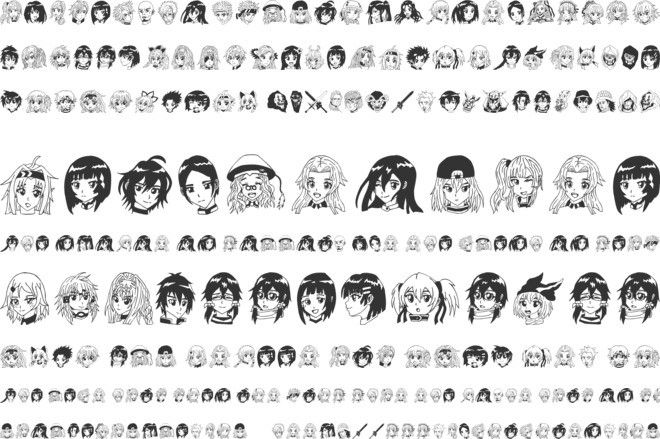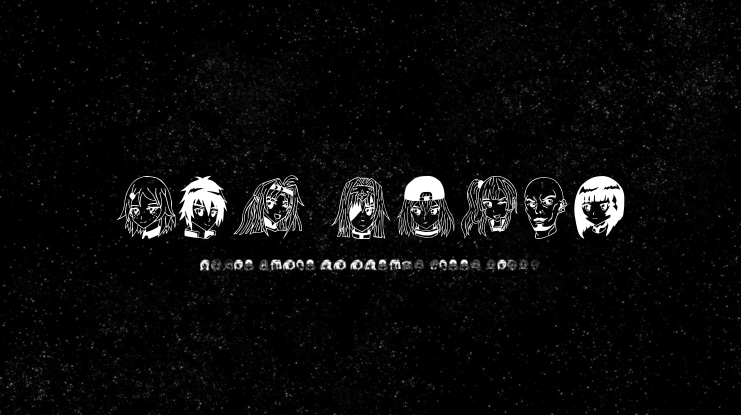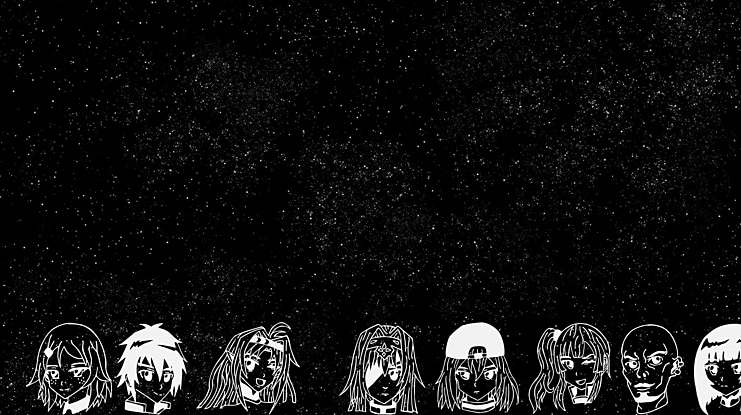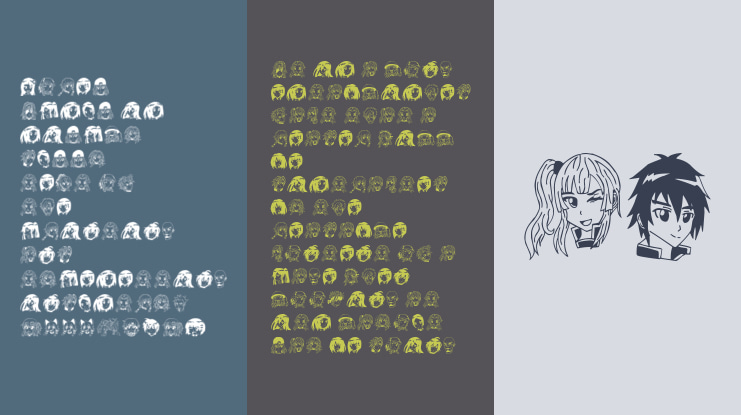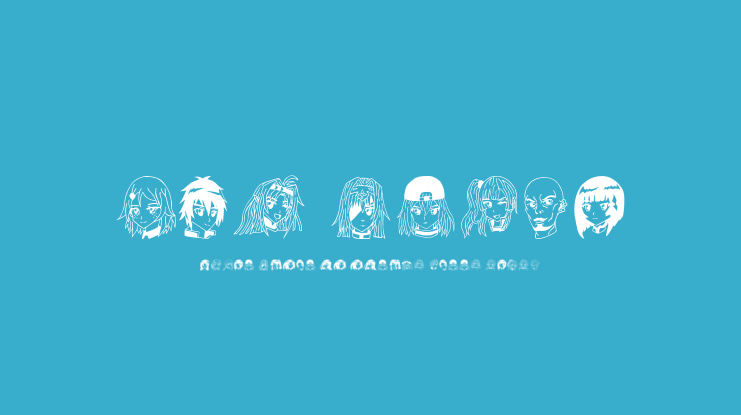
SAO Image Font
I love the anime of Sword Art Online and because of that I made this font just for fun. your contribution is very valuable for me to make more anime fonts.